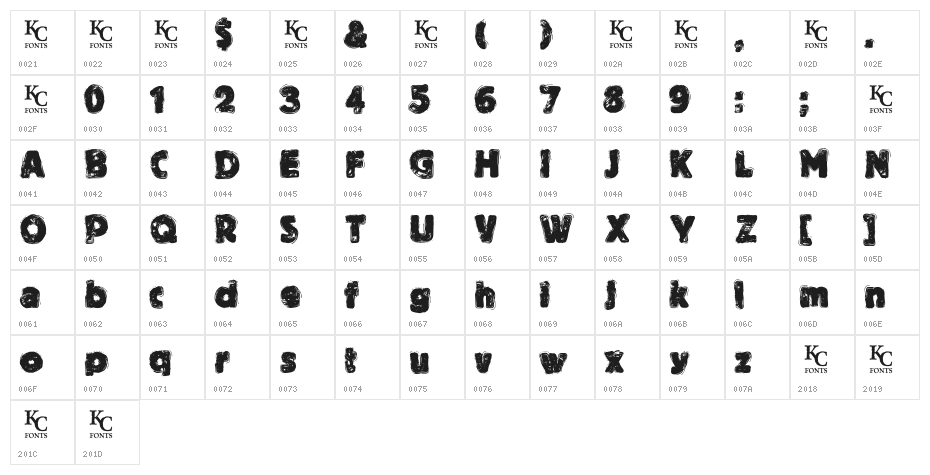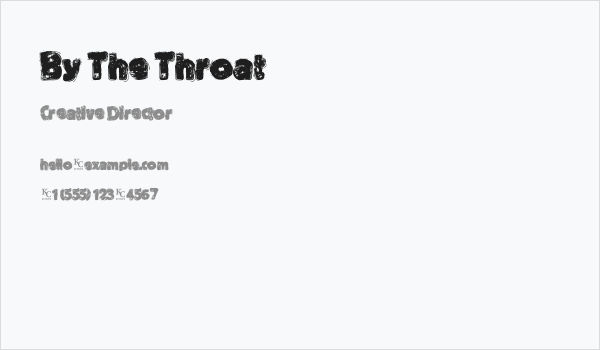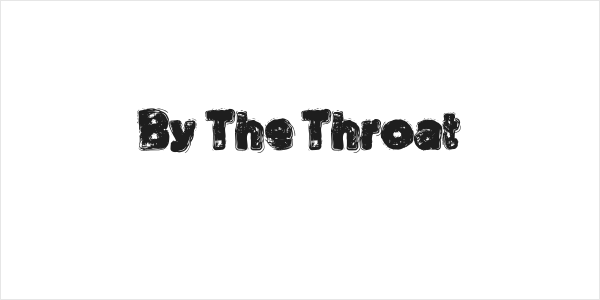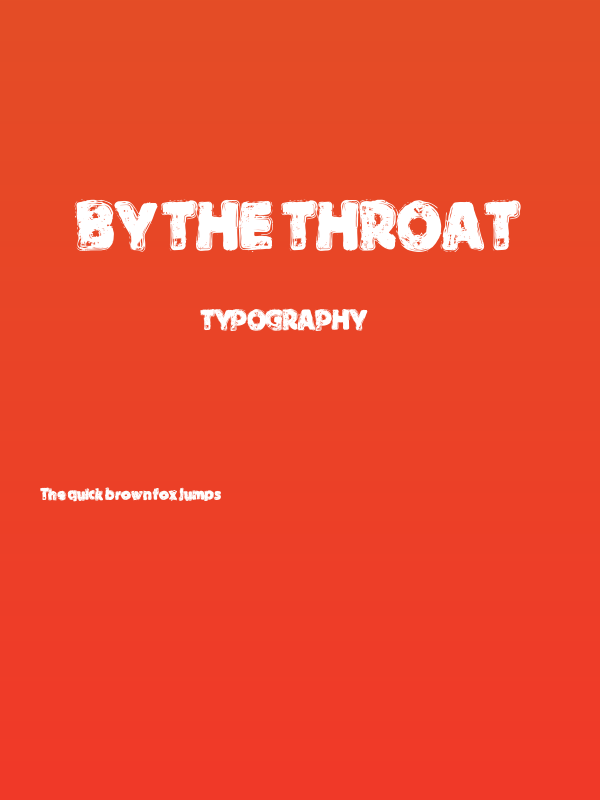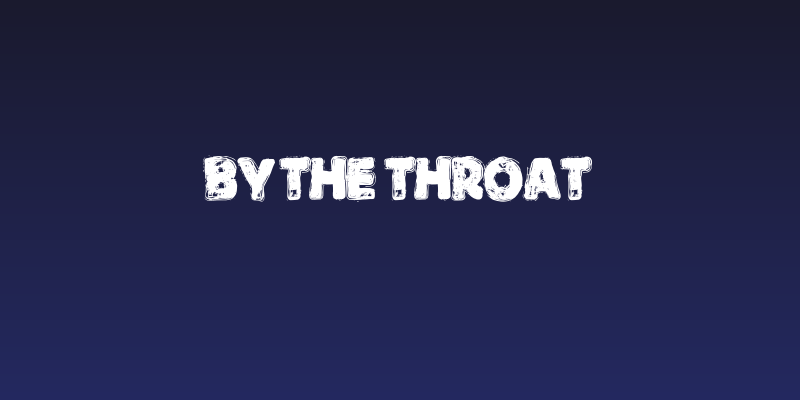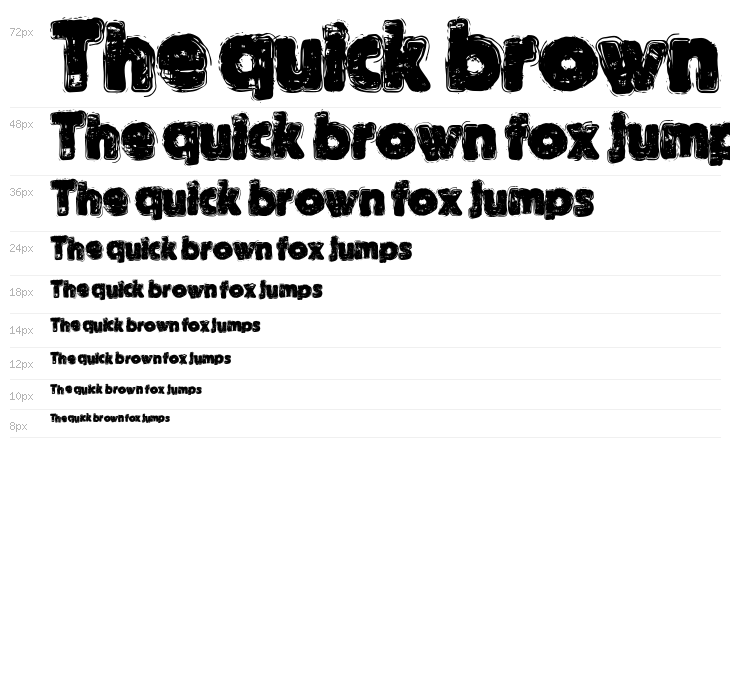
By The Throat Font
By The Throat Description
This font features a bold and distressed style, with a textured appearance that gives it a rugged and edgy feel. The characters are thick and heavy, with a rough, hand-drawn quality that suggests a sense of urgency or intensity. The uppercase and lowercase letters maintain a consistent weight, while the numbers and special characters follow the same distressed aesthetic. This font is ideal for projects that require a strong visual impact and a touch of grunge or urban flair.
| Proposed Projects | Ideal for music album covers, posters, urban-themed designs, and edgy branding projects. |